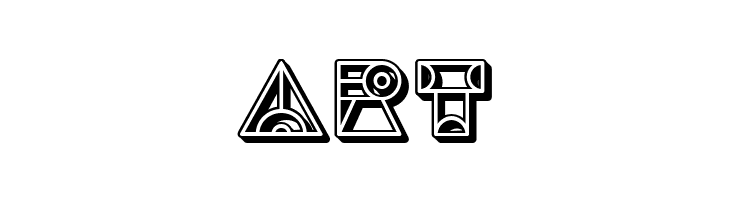
( loosydesign - Fabian Pfeifhofer - www.loosydesign.com )
A modern, italicized font with clean lines and a professional appearance.
A flowing, cursive font with elegant and readable characters.
( Fonts by Toto )
A graceful cursive font with flowing lines and elegant curves.
( Lukas Schiltknecht - www.getthepro.ch )
A classic Blackletter font with intricate, ornate letterforms and a Gothic aesthetic.
A bold, glitch-inspired font with a distressed, fragmented appearance.
( Fonts by TarmSaft Font Factory - http://www.aska.nu/tarmsaft/ )
A playful, hand-drawn font with uneven strokes and a whimsical style.
( Fonts by TarmSaft Font Factory - http://www.aska.nu/tarmsaft/ )
A bold, playful, and hand-drawn style font with a modern and whimsical feel.
A graceful script font with connected, flowing letters and a sophisticated style.
A fluid and elegant cursive font with smooth, connected letters.
A connected, cursive font with an elegant and fluid style.
A bold, punk-inspired font with blocky, irregular shapes and playful distortion.
A modern, outlined font with clean lines and geometric structure.